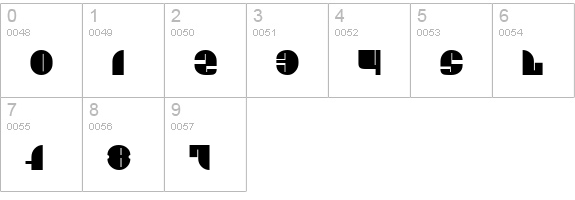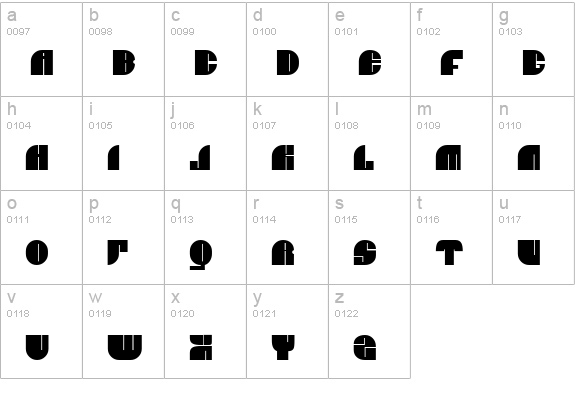
The BN JNCO font is a modern and stylish typeface that exudes a sense of creativity and flair. Its bold, clean lines make it perfect for a variety of design projects, from logos to posters to web graphics. With its distinctive geometric shapes and sleek curves, this font is sure to make your text stand out and grab attention. And the best part? BN JNCO is available for free! That's right, you can download this fantastic font at FontsMarket.com without spending a penny. So why wait? Add a touch of sophistication and elegance to your designs with the BN JNCO font today!